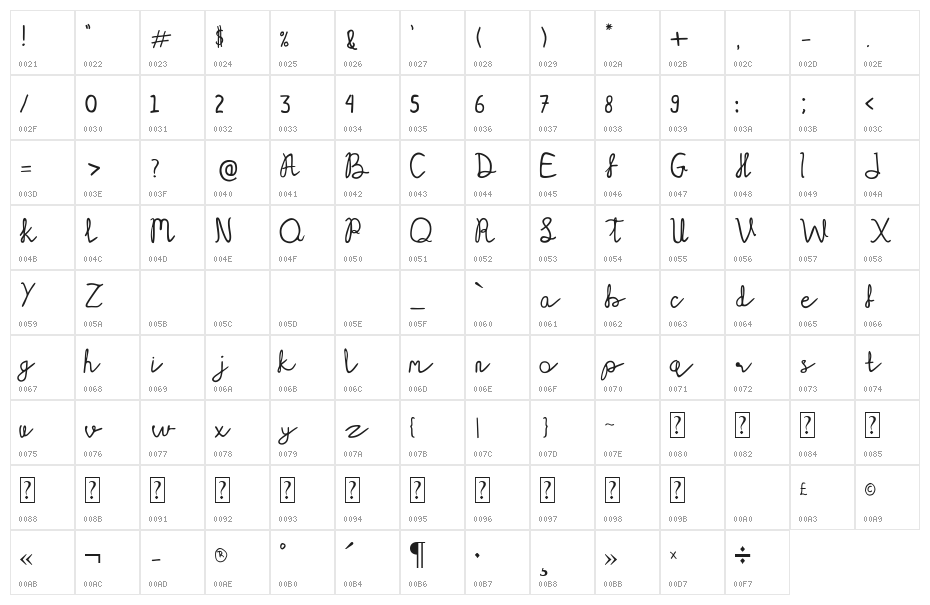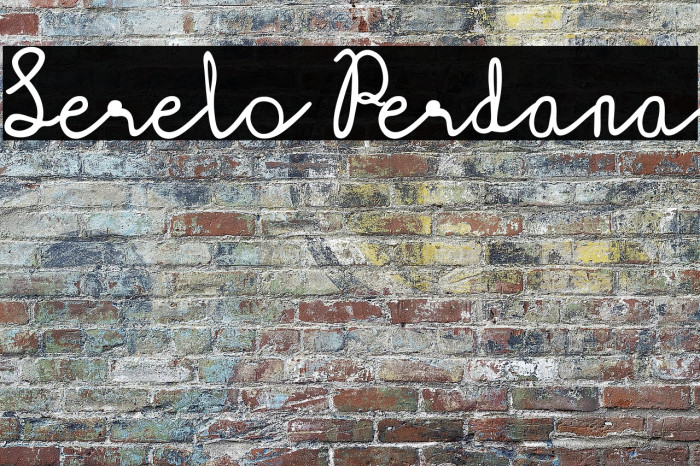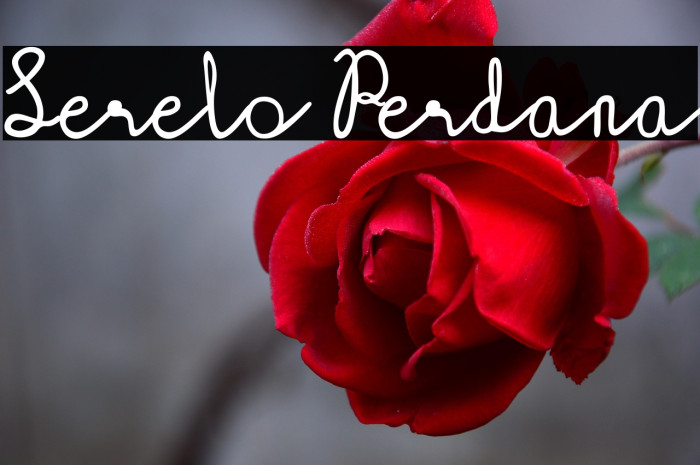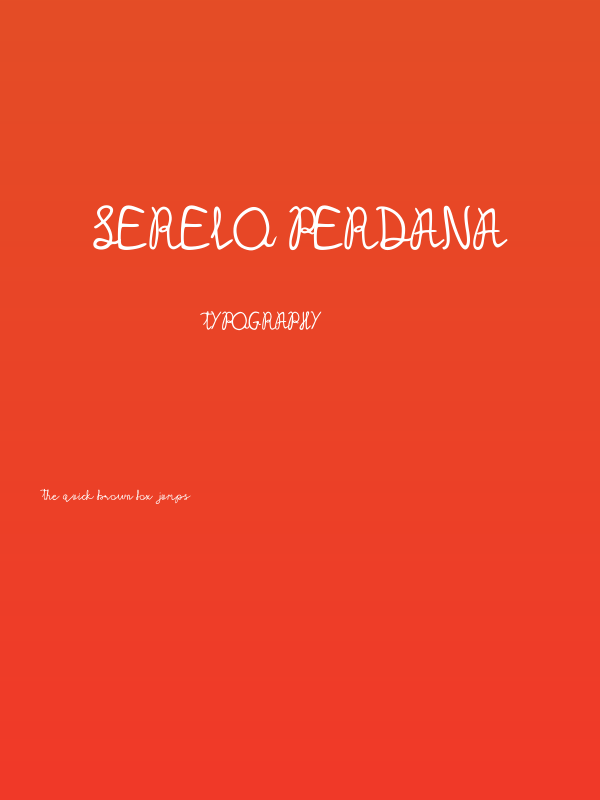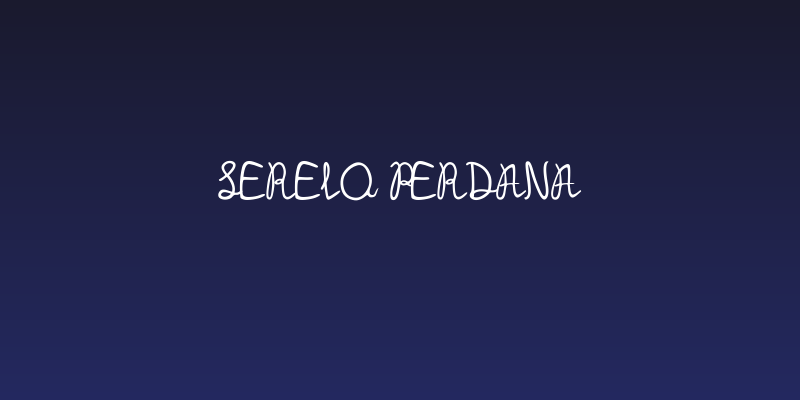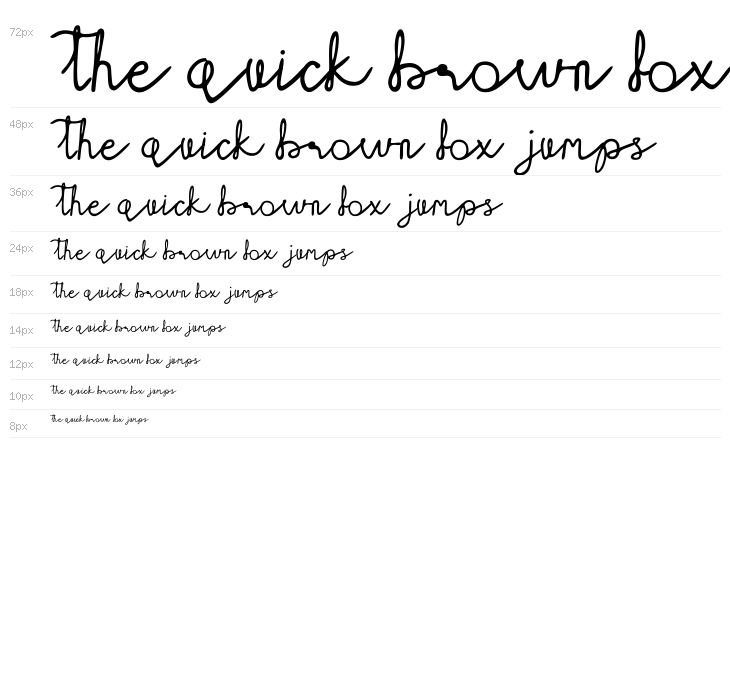
Serelo Perdana Font
Serelo Perdana Description
This font features a playful and casual handwritten style, characterized by its fluid and continuous strokes. The letters are slightly slanted, giving it a dynamic and lively appearance. The uppercase and lowercase letters maintain a consistent flow, with rounded edges and a smooth finish. The numbers and special characters complement the alphabet with a similar handwritten charm, making it suitable for informal and creative projects. The overall look is friendly and approachable, ideal for adding a personal touch to any design.
| Proposed Projects | Greeting cards, invitations, personal branding, social media graphics, and children's book illustrations. |